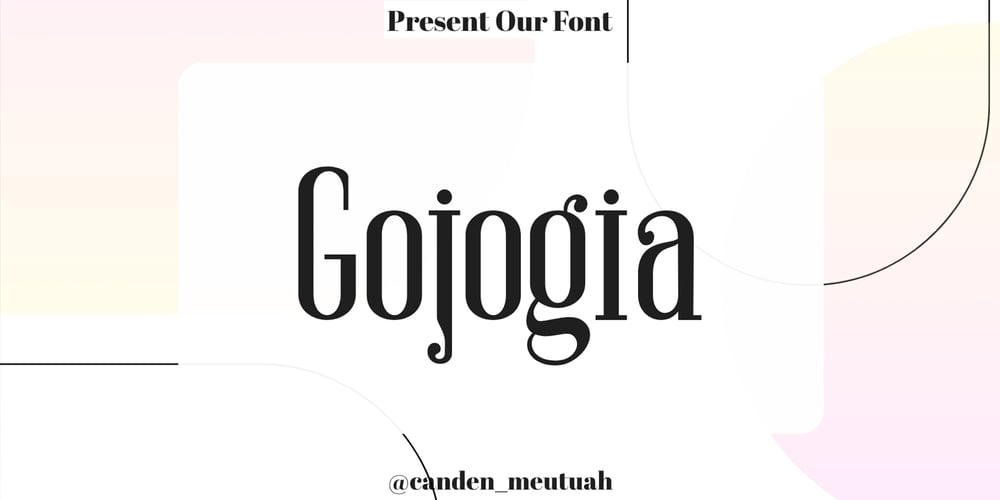
Gojogia
Gojogia font
Gojogia Font Family was designed by Canden Meutuah and published by Canden Meutuah. Gojogia contains 1 styles and family package options. this is a simple and elegant Slab serif font full of modern style.This font is very suitable for you to use for many purposes such as branding, logos, wedding designs, social media posts, advertising, product packaging, product design, labels, photography, watermarks, invitations, stationery, and any project.This font is complete in many other languages.you will not be disappointed with the results.thank you